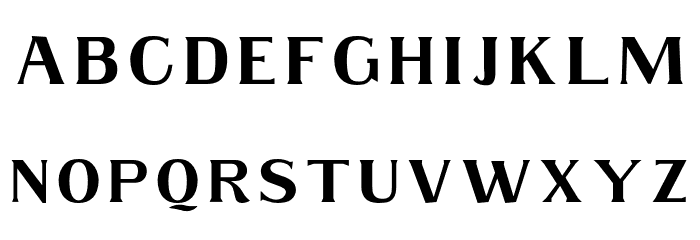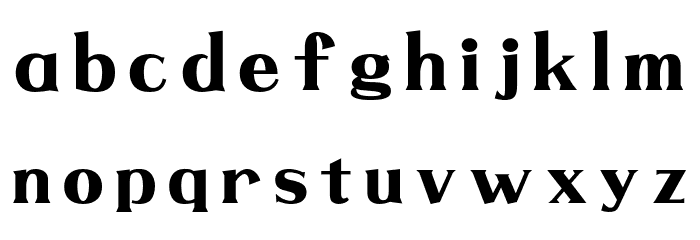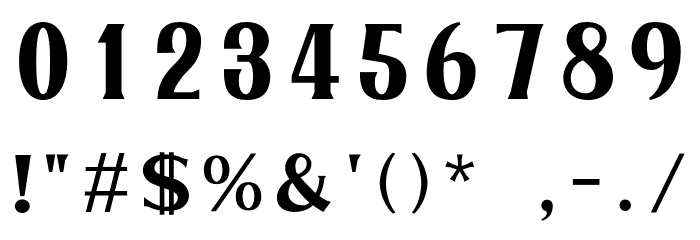
Sonnijo Normal Font
This font exhibits a classic serif style with a strong presence and elegant curves. The uppercase letters are bold and commanding, while the lowercase letters maintain a consistent and harmonious appearance. The numerals are well-proportioned, ensuring readability and balance. Special characters are distinct and integrate seamlessly with the overall design. The font's structure is robust, making it suitable for various formal and professional applications. Its timeless appeal is enhanced by the subtle contrast in stroke thickness, adding depth and character.
A classic serif font with bold, elegant curves and strong presence.
- Font: Sonnijo Normal
- Proposed Projects: Ideal for editorial design, book covers, formal invitations, and branding projects that require a touch of elegance and tradition.
- Category: Serif
- Overall Style: Classic
- Use Case: Headlines, Body text, Logos